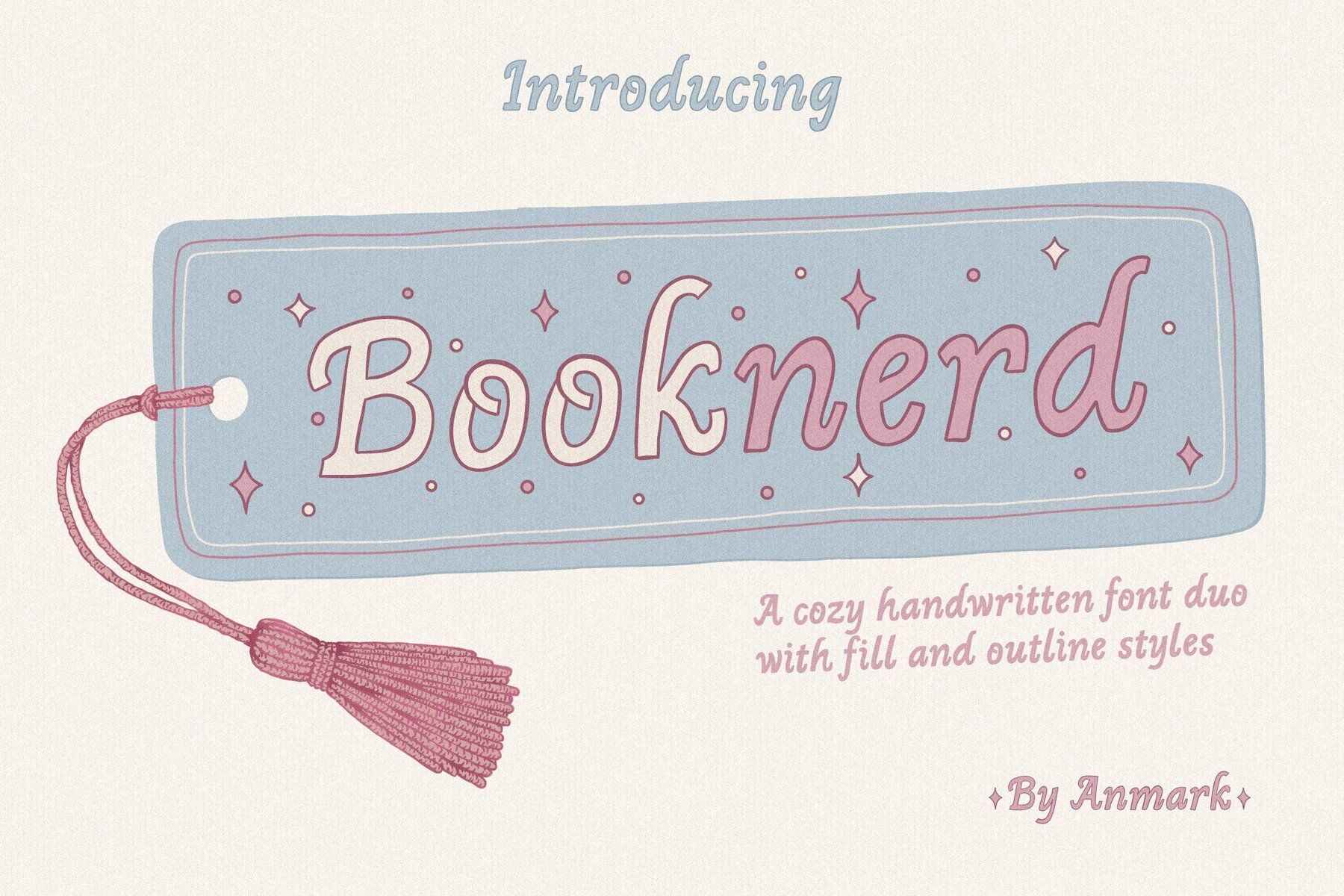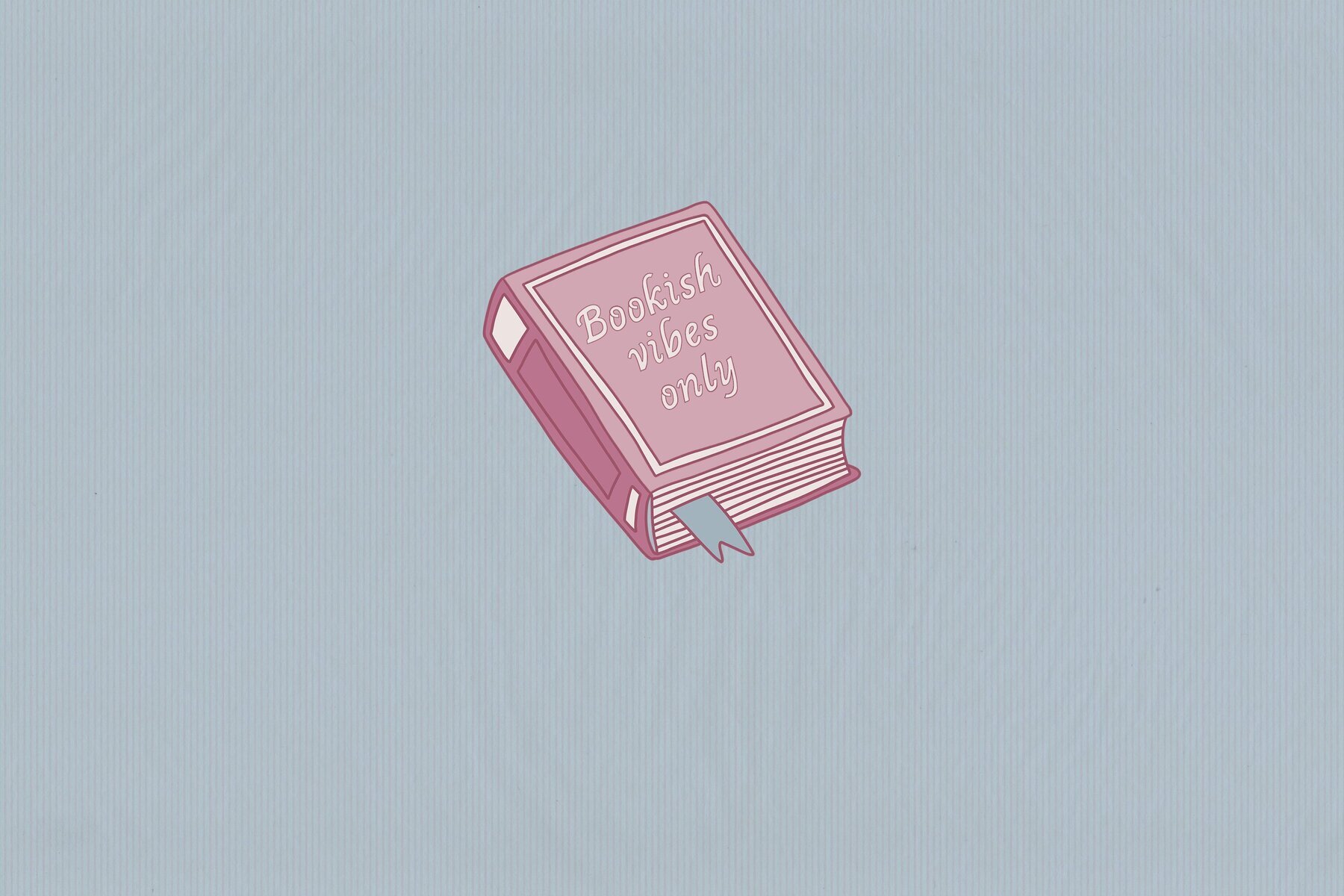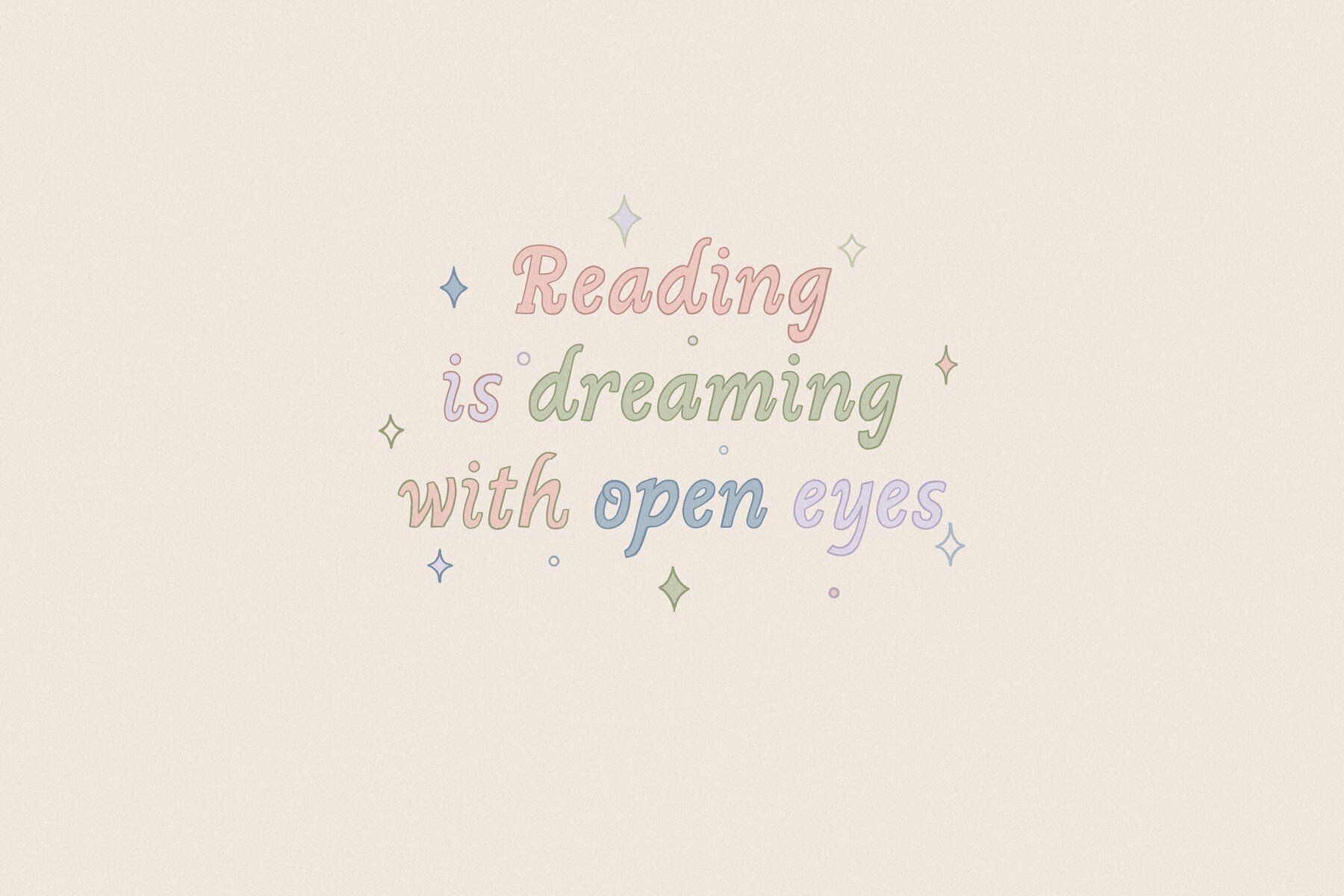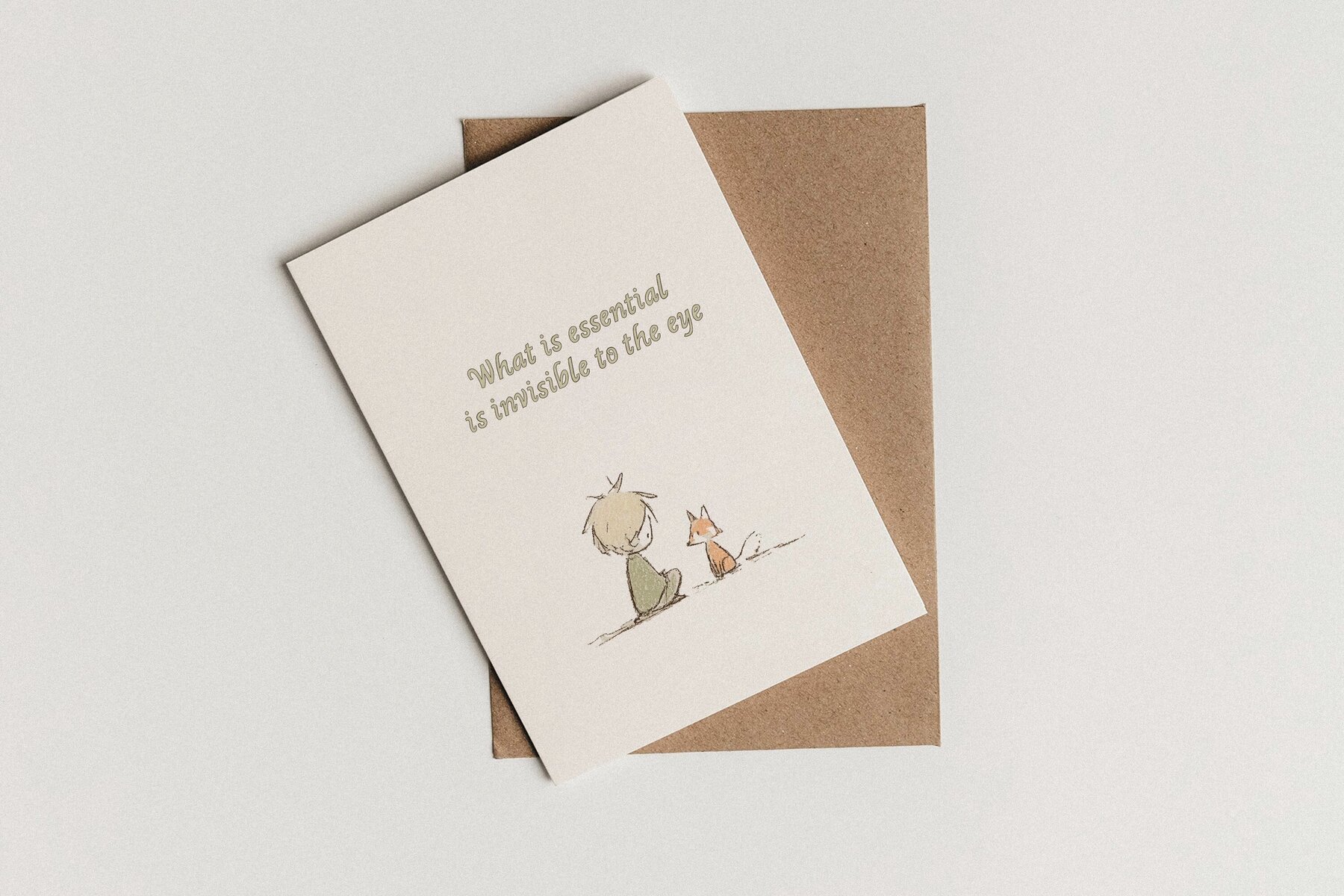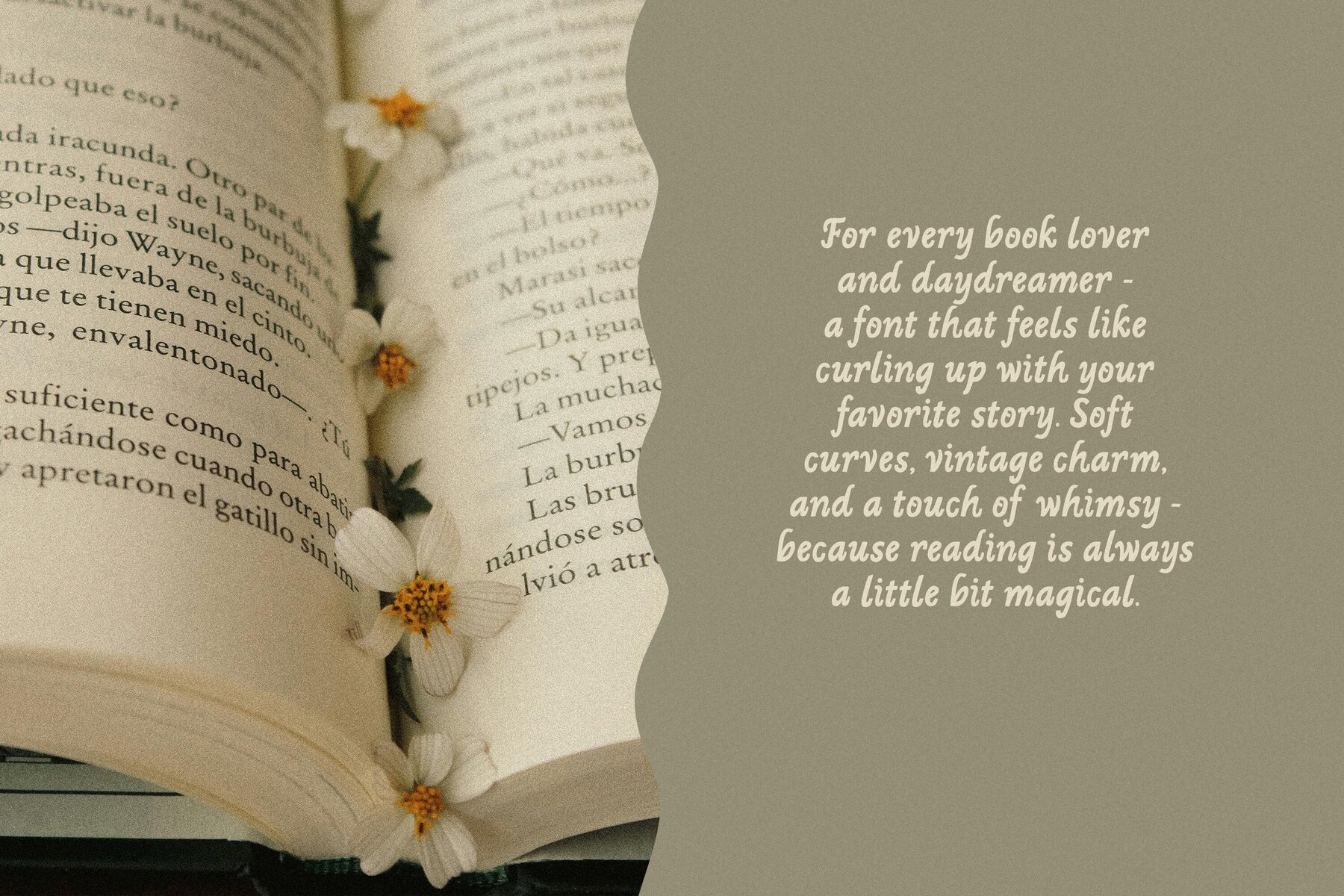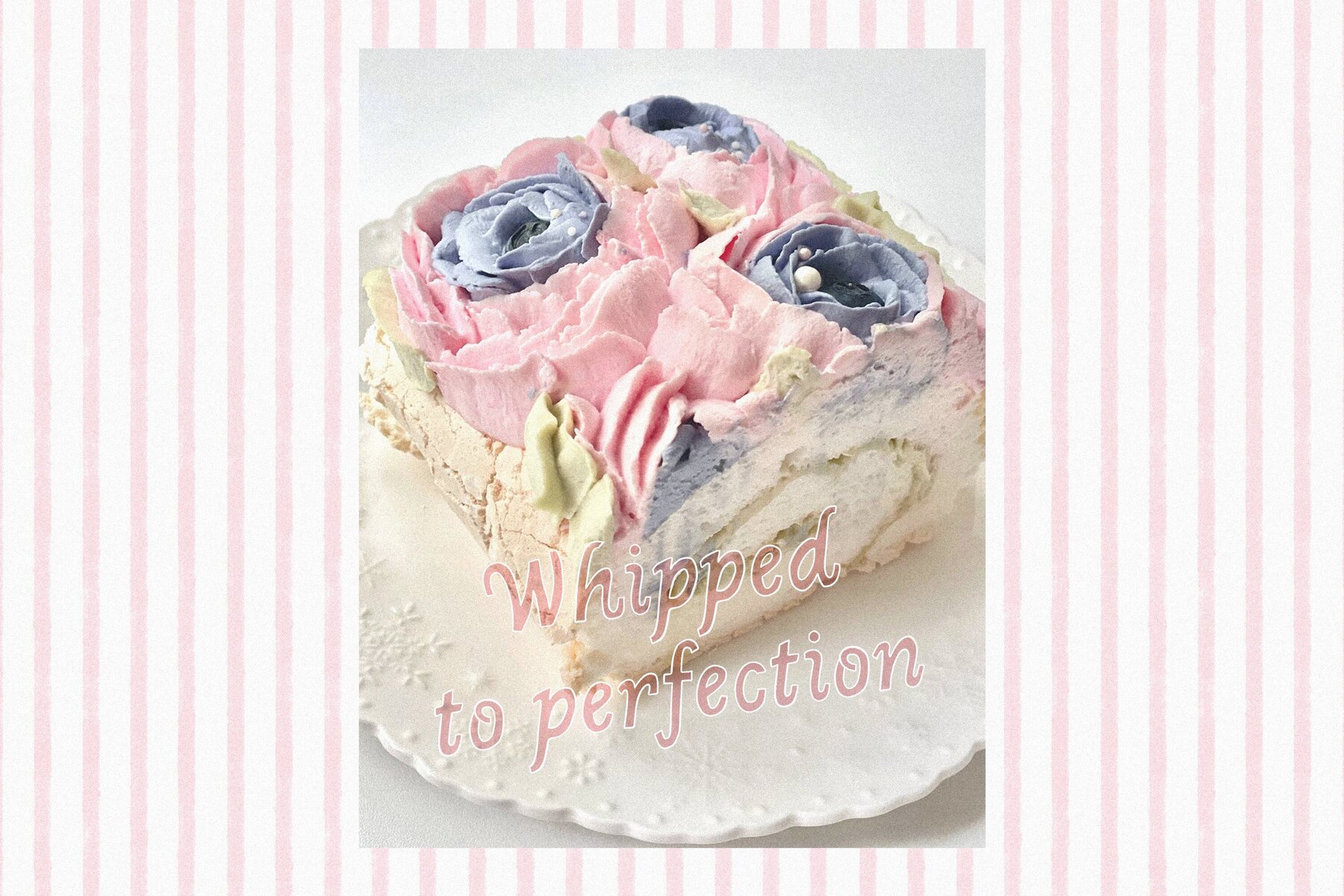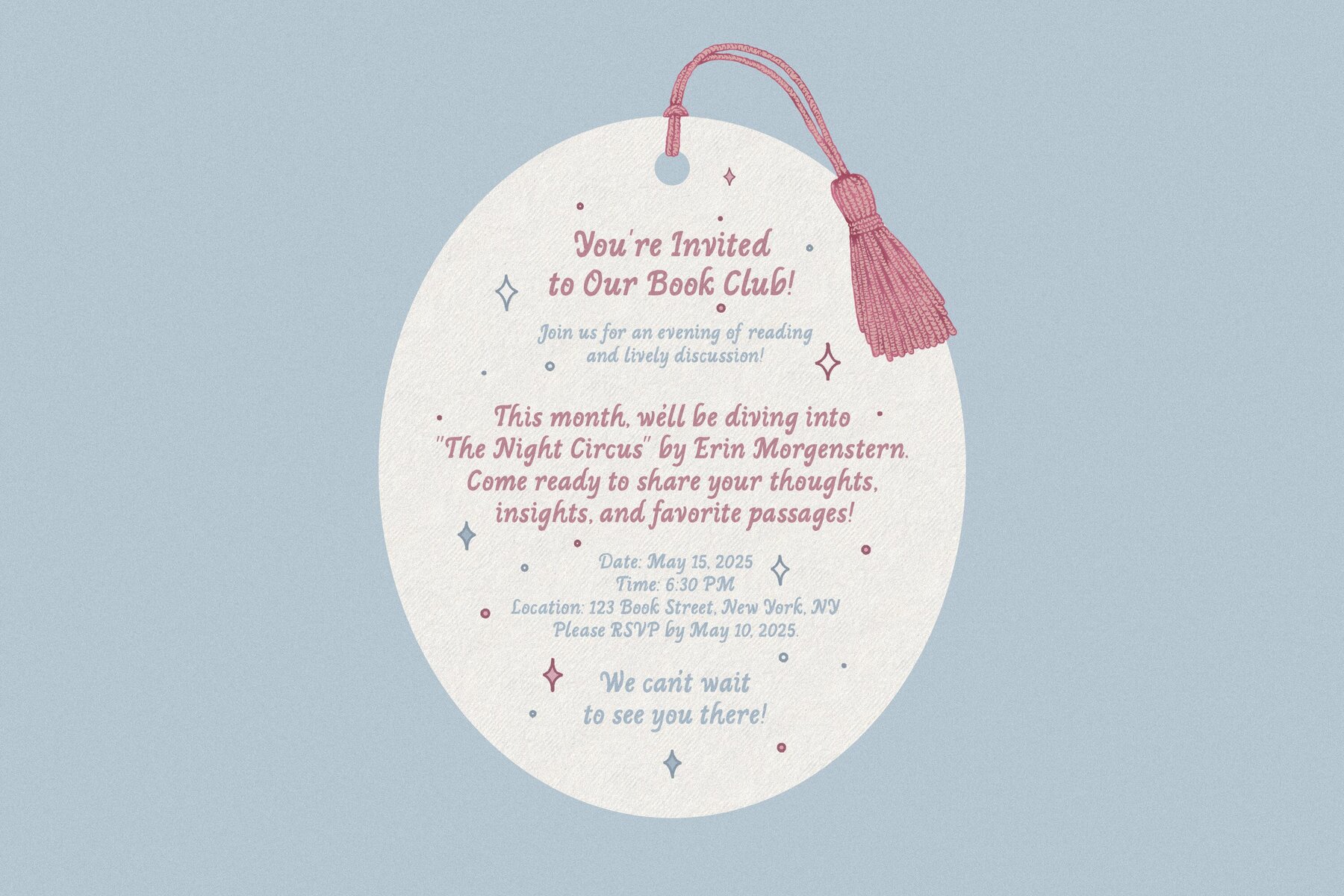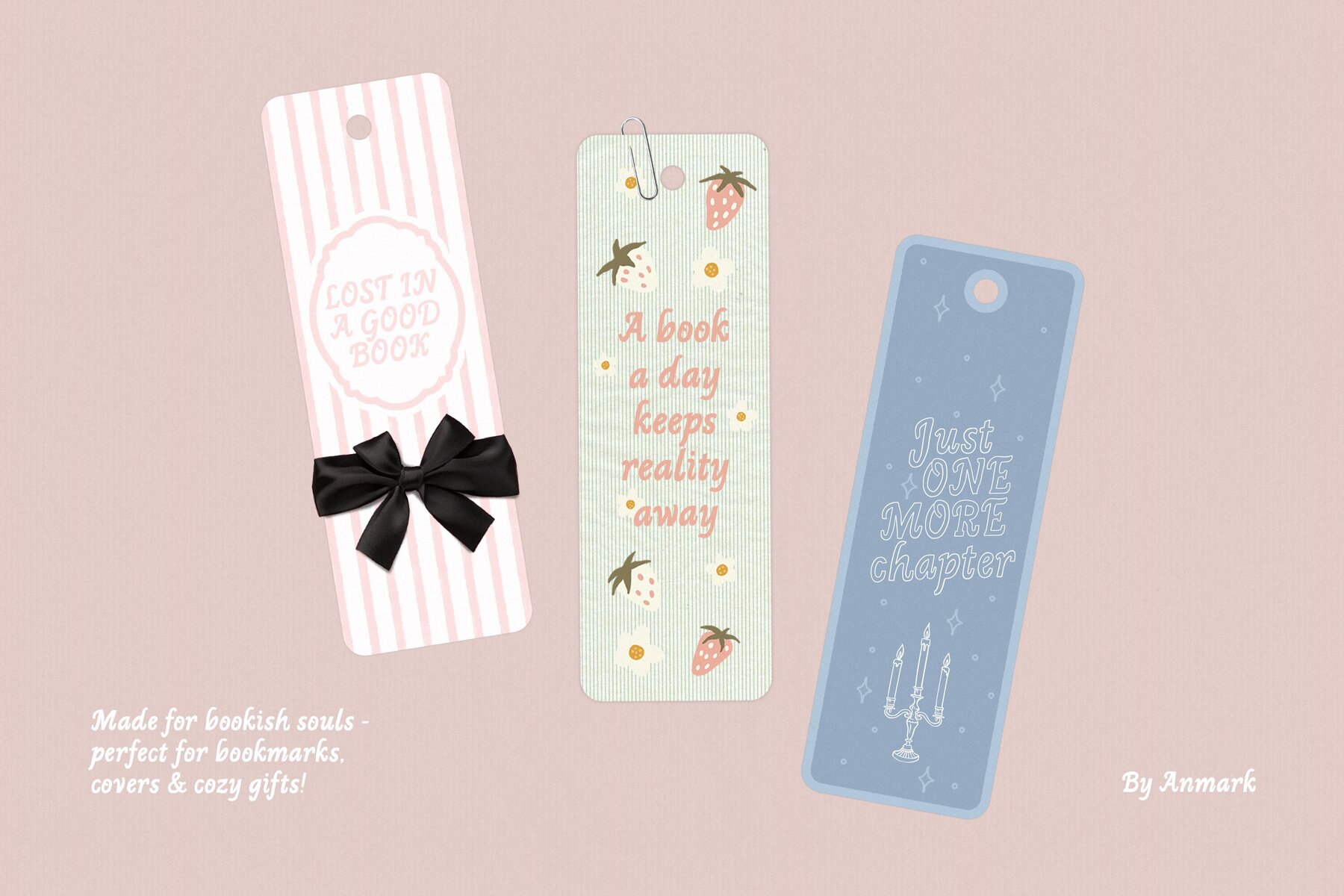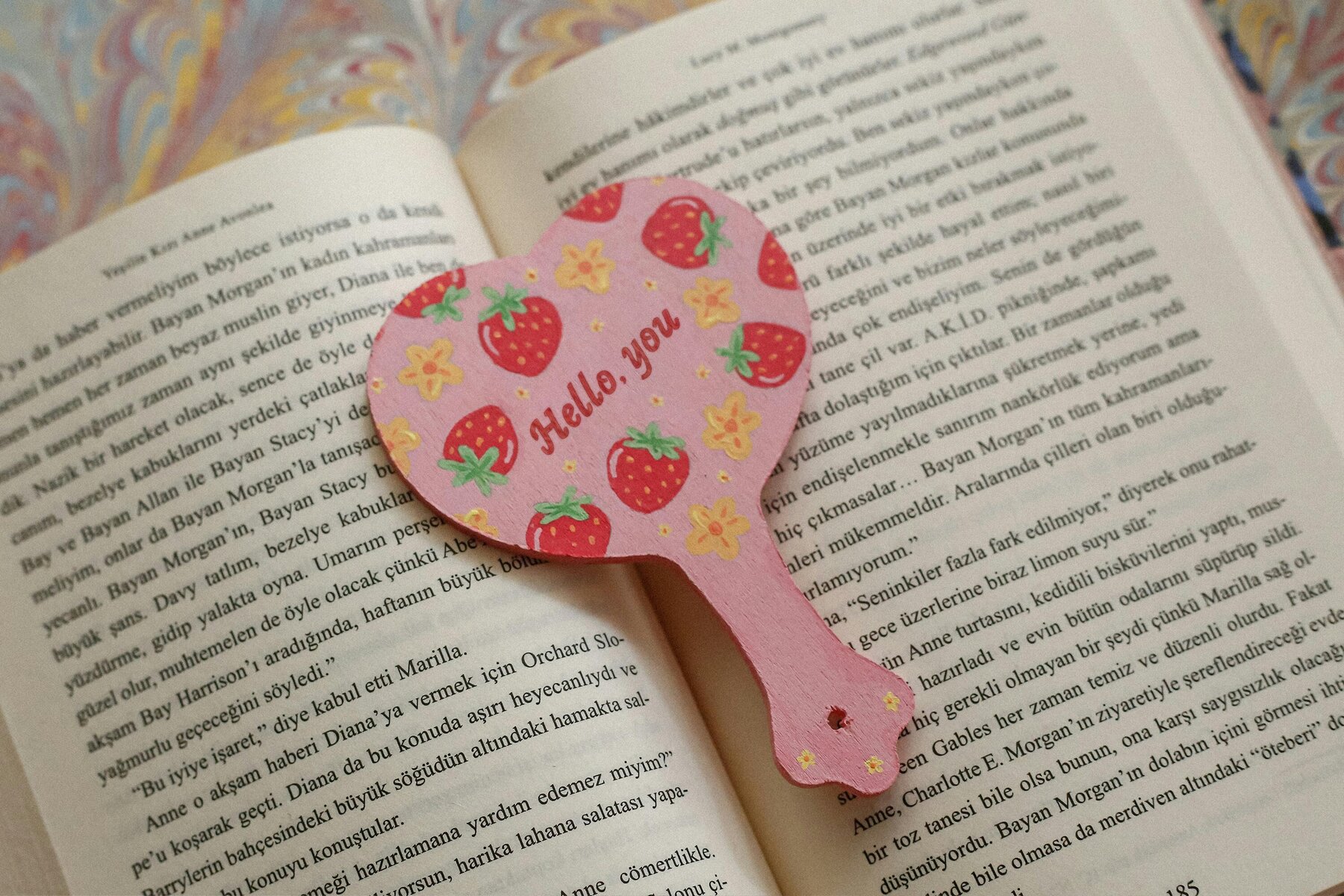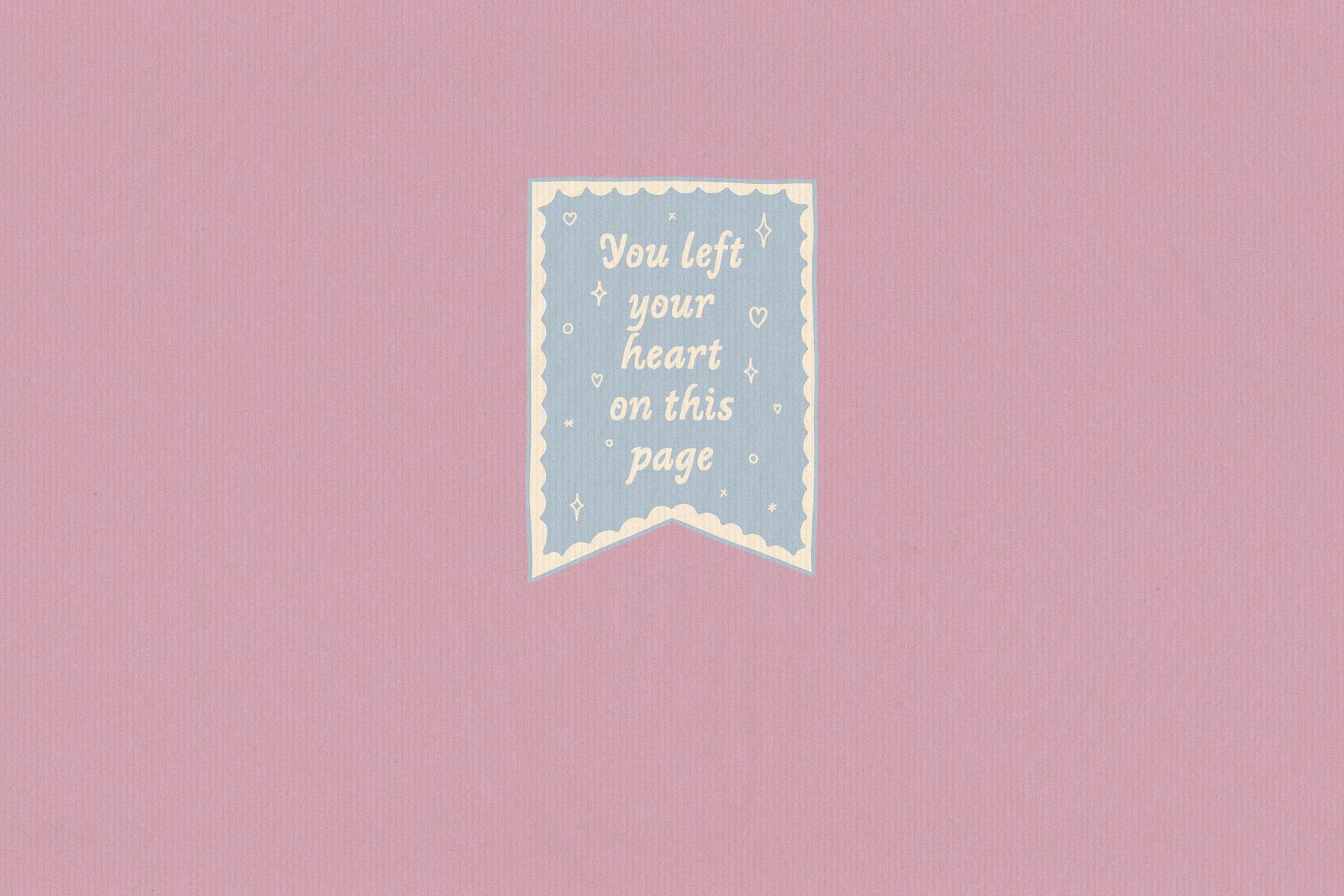
Booknerd Font
Booknerd Regular
Booknerd Outline
Booknerd evokes the nostalgia of old books and cozy reading nooks. Available in Regular and Outline styles, it adds charm and personality to any project. Perfect for romantics and avid readers, Booknerd is ideal for creating handwritten-like invitations, bookmarks that yearn to be shared, and endearing merchandise. Use it for wedding stationery, invitation design, or packaging that captures the essence of an indie bookstore. For those who cherish storytelling, Booknerd is a responsive typeface that enhances your work.Booknerd: A Font for Literary Enthusiasts